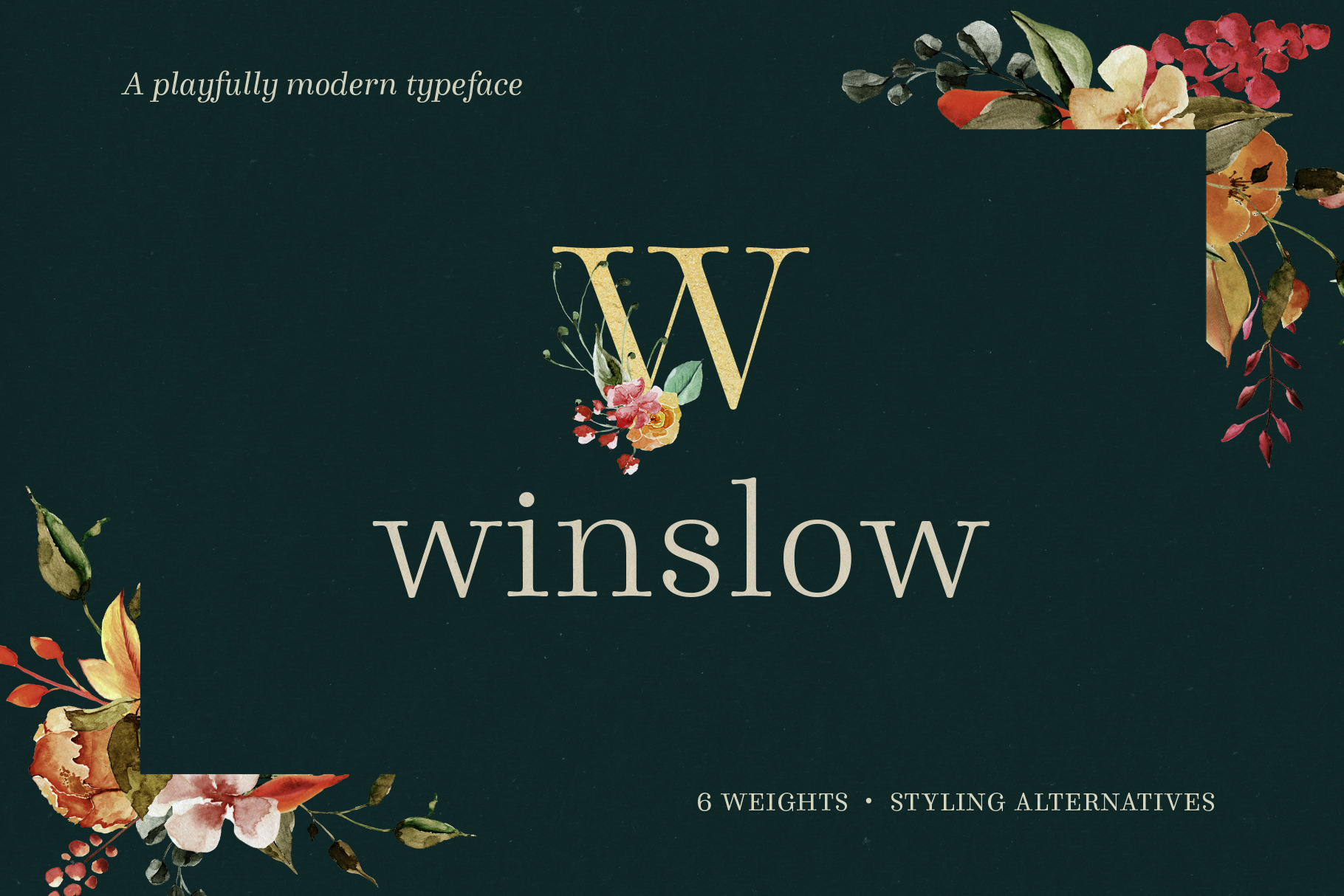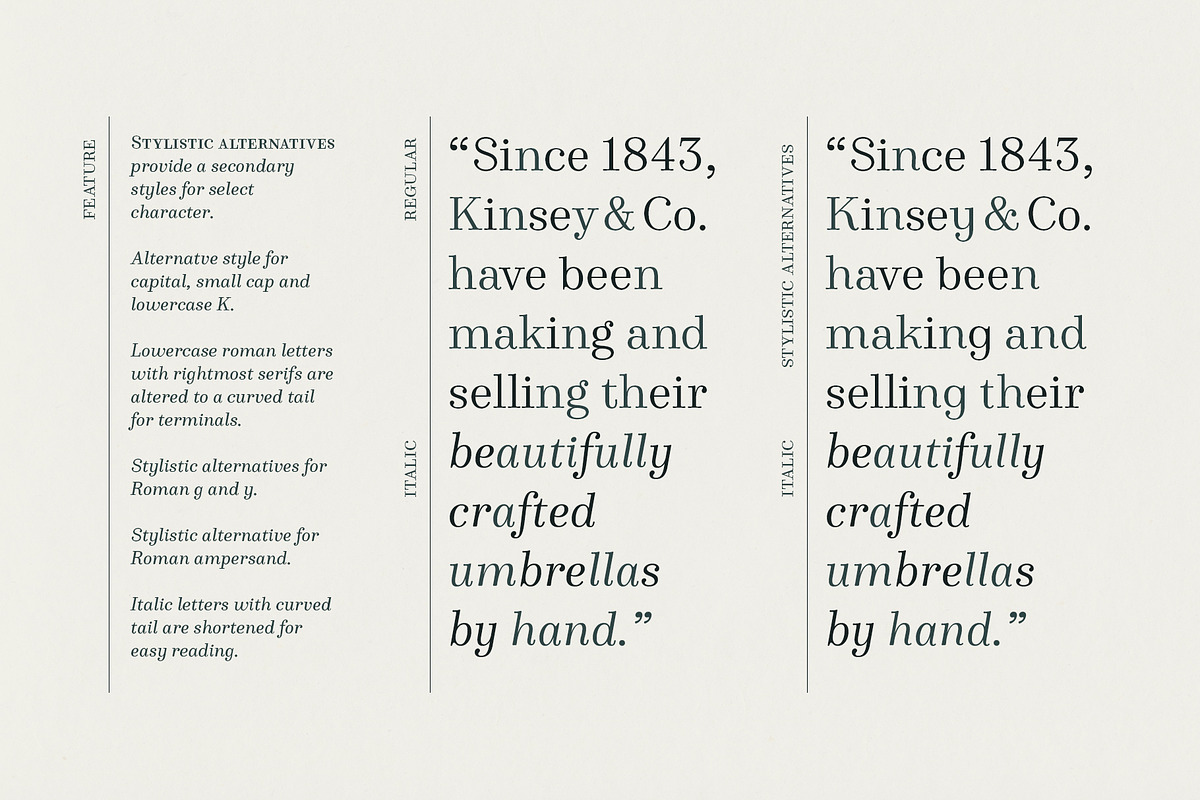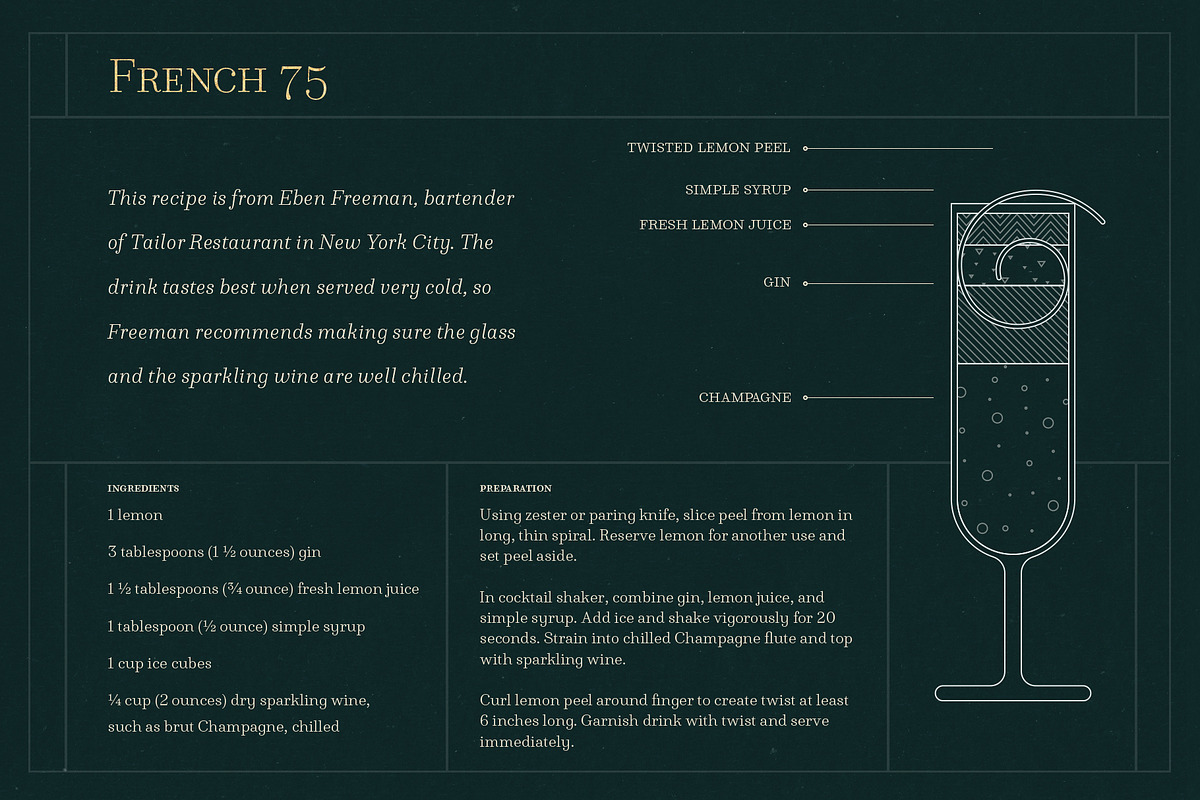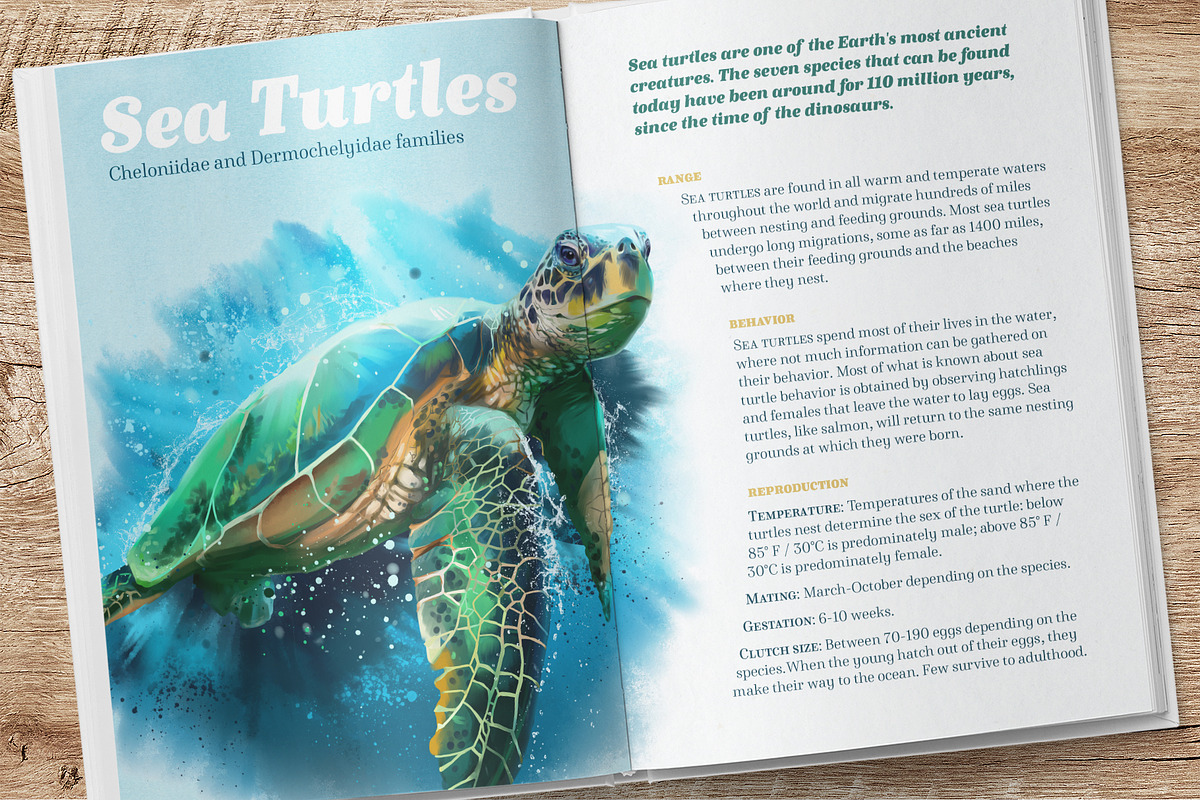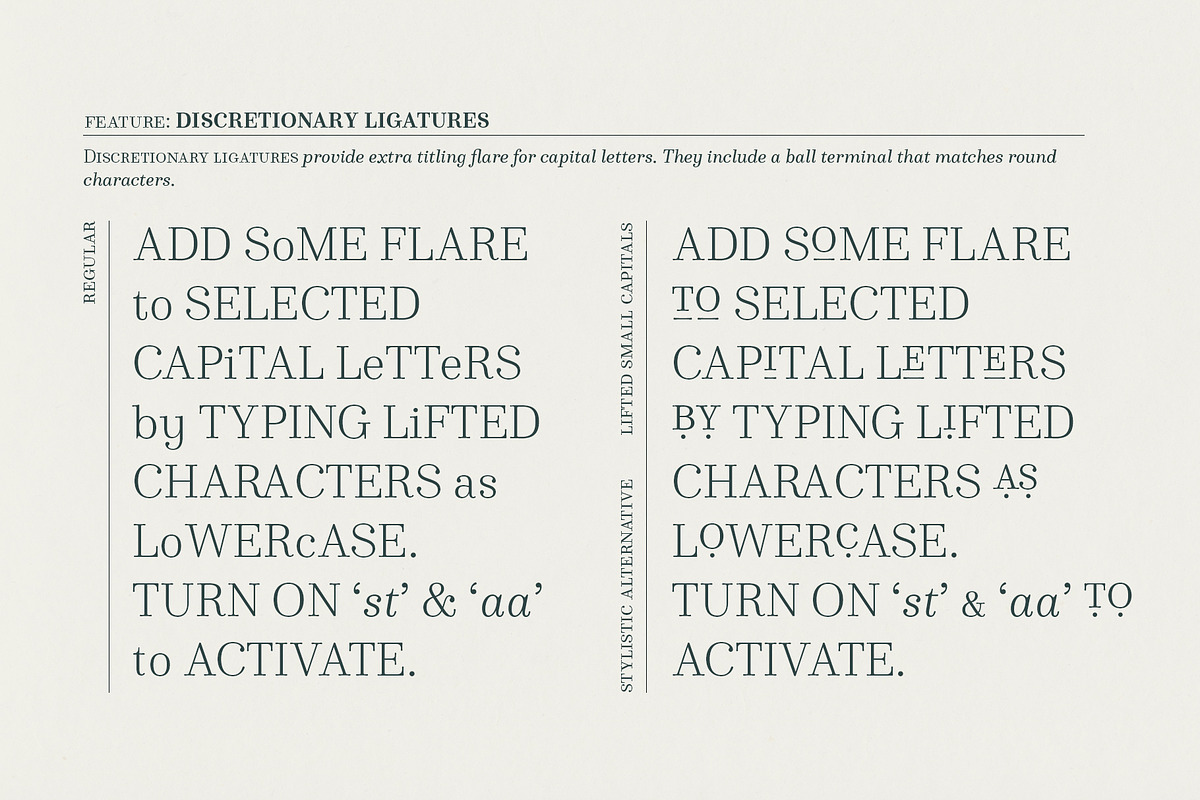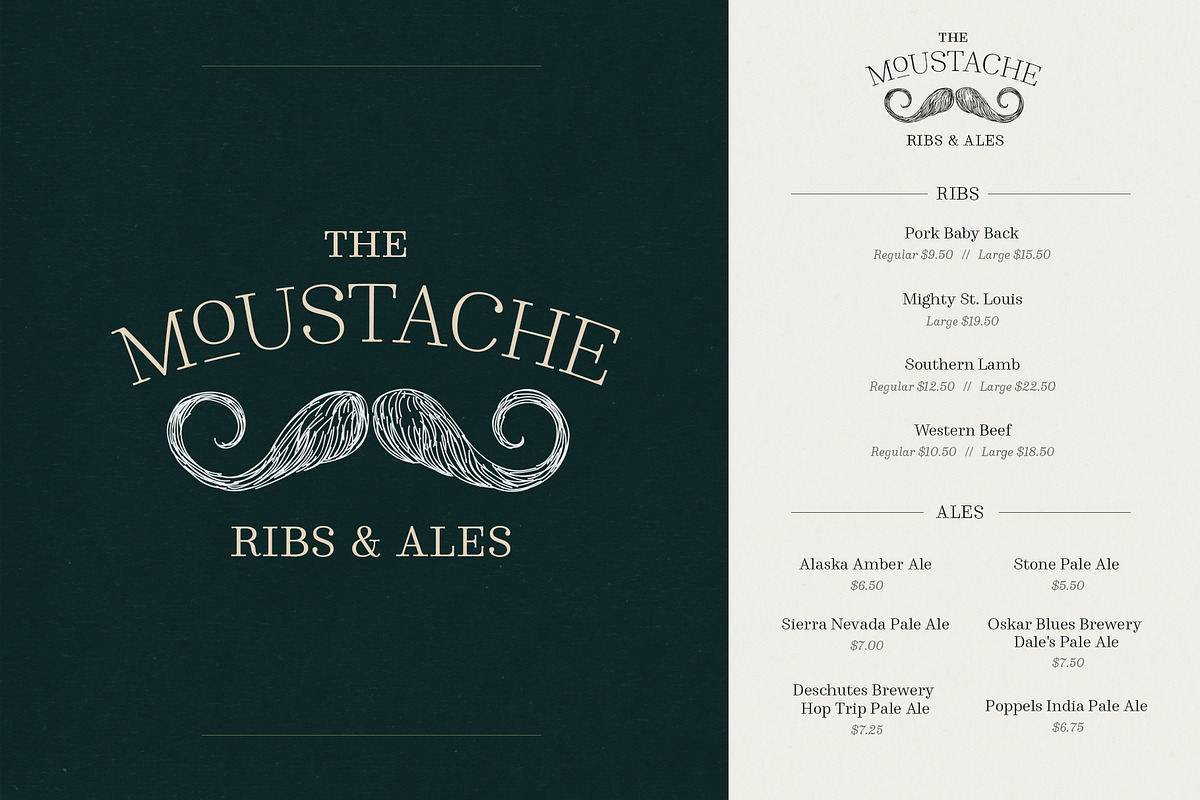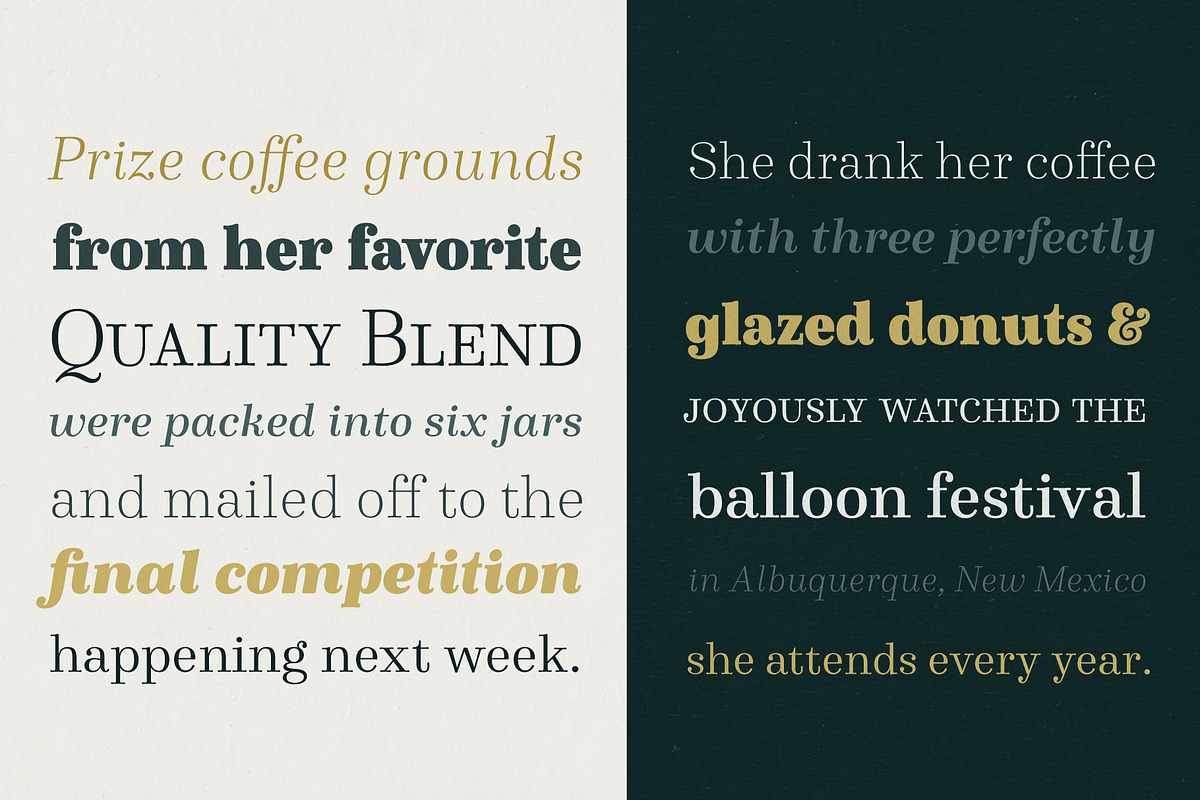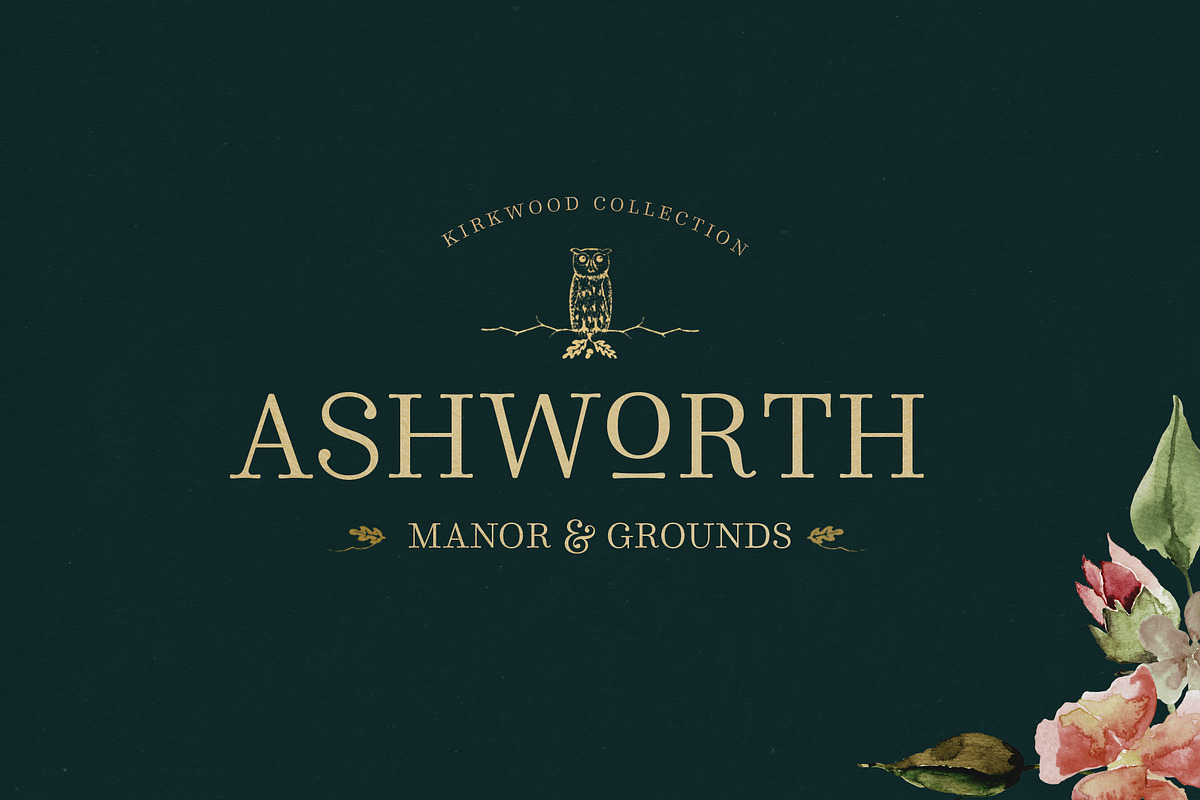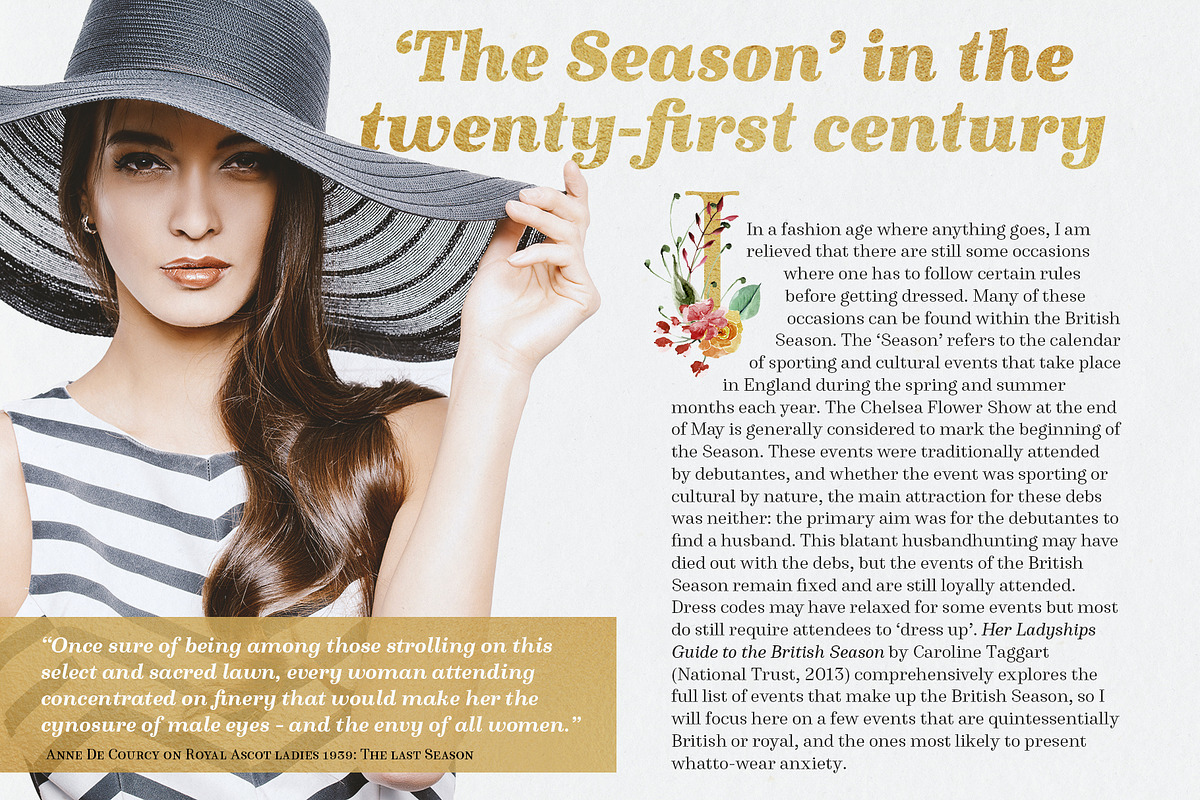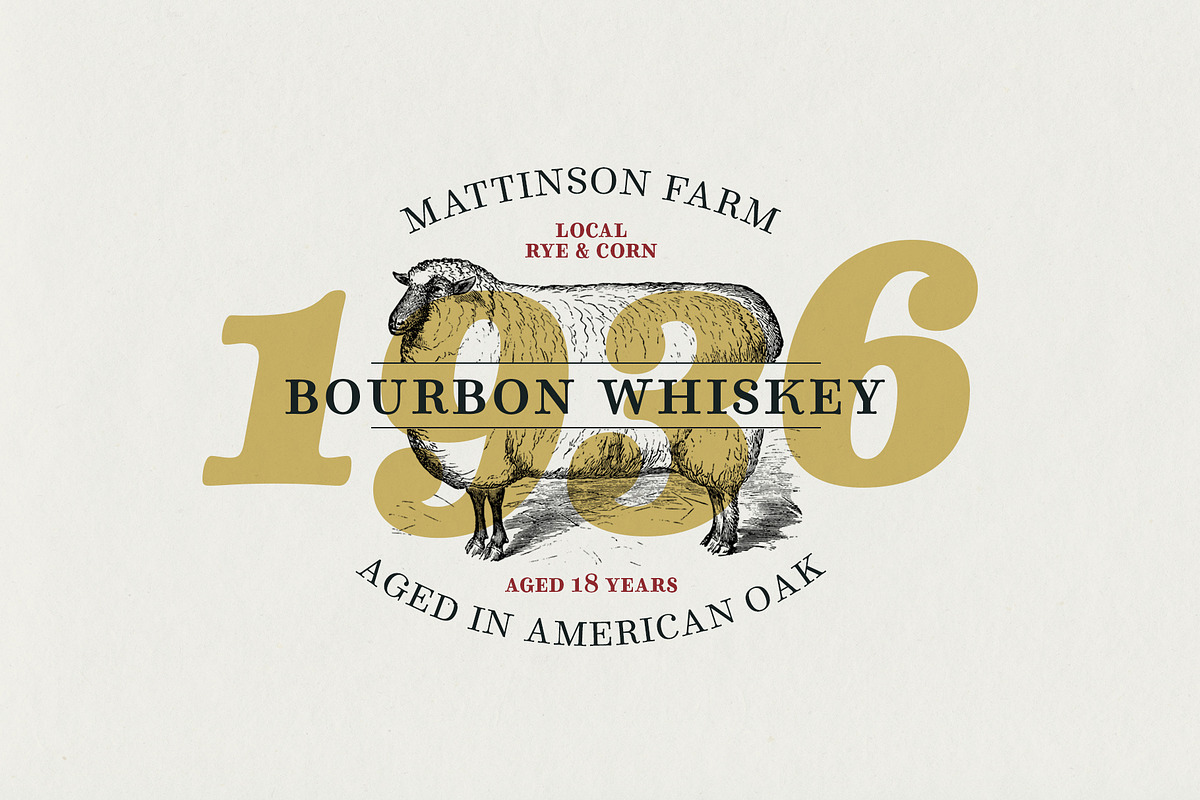
Winslow Font Family
Winslow Book is a playfully modern typeface with 6 weights and packed with styling features. Delicate features give it a playful feel while keeping Scotch Modern attributes of vertical stress, bracket serifs and ball terminals. Unique features separate it from others in the category, including ball terminals on the roman ’s’ and a slight swelling in the serifs. Winslow was designed to be a perfect typeface for text and display purposes.
Because optionality is always fun, Winslow comes with an array of alternative features that add and extra bit of flare. From stylistic alternatives to tail serifs (in K, k, d, h, m, n) to complete new character designs (for g, y and &) a designer can choose between which style they need for any project. Discretionary ligatures also create alternatives to all capital letter combinations.
The family also comes with a playful set of italics that compliment the roman and come with their own set of alternatives.
Typeface Family:
- Winslow Book Hairline
- Winslow Book Hairline Italic
- Winslow Book Light
- Winslow Book Light Italic
- Winslow Book Regular
- Winslow Book Regular Italic
- Winslow Book SemiBold
- Winslow Book SemiBold Italic
- Winslow Book Bold
- Winslow Book Bold Italic
- Winslow Book Black
- Winslow Book Black Italic
Alternatives:
- Stylistic alternatives for both roman and italic
- Discretionary ligatures for capital letters
- Start swashes for capital letters
- Alternative ampersands